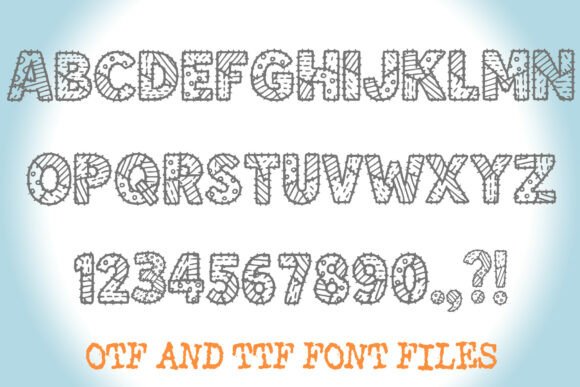
Introduction to Patchwork Embroidery Font Font
Fonts play a crucial role in design, and the Patchwork Embroidery Font font is a typeface that brings both character and versatility to any project. Whether you’re working on a branding project, a website, or a print design, the Patchwork Embroidery Font font offers a unique style that can elevate your work.
Patchwork Embroidery is a playful decorative display font inspired by hand-stitched fabric and textile art.
Each character is designed to resemble colorful patches sewn together with visible stitch lines, combining charming imperfection with folk-art warmth With its hand-drawn aesthetic, layered textures, and patch-style color blocking, this typeface brings a tactile, cozy feel to digital designs.
Key Features of Patchwork Embroidery Font Font
Why Choose Patchwork Embroidery Font Font?
The Patchwork Embroidery Font font is more than just a typeface – it’s a design tool that helps you communicate your message with style and clarity. Its unique character set and versatile design make it suitable for a wide range of applications, from elegant invitations to bold headlines.
With its carefully crafted letterforms and balanced proportions, the Patchwork Embroidery Font font ensures readability and visual appeal across all mediums.
What makes Patchwork Embroidery Font font special?
The Patchwork Embroidery Font font stands out with its unique design, exceptional readability, and versatility across various design applications.